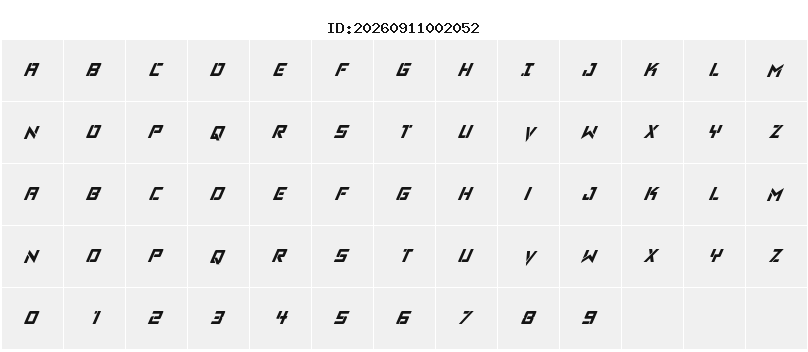
Viking Squad Condensed Italic Preview
• Font Name: Viking Squad Condensed Italic
• Font Style: Condensed Italic
• Full Font Name: Viking Squad Condensed Italic
About Viking Squad Condensed Italic.ttf
Viking Squad Condensed Italic.ttf is a modern, elegant sans-serif font designed for ultimate readability and visual harmony. Perfect for branding, headlines, web design, and print materials.